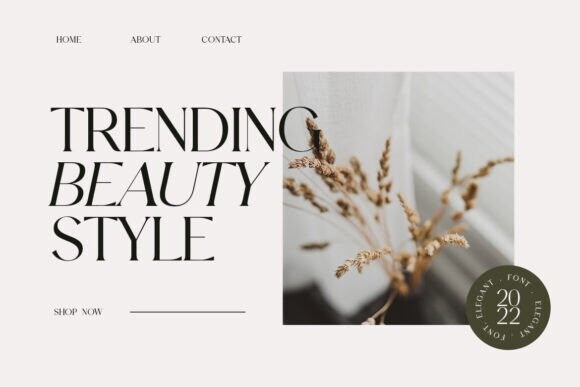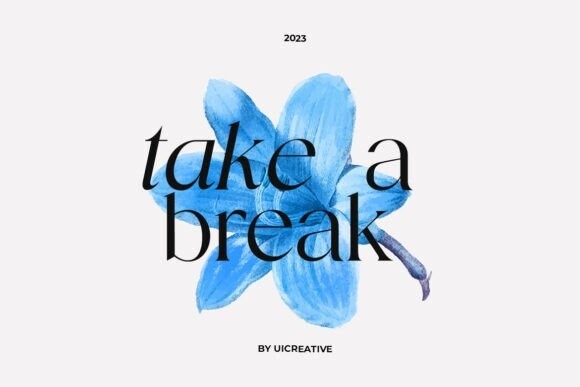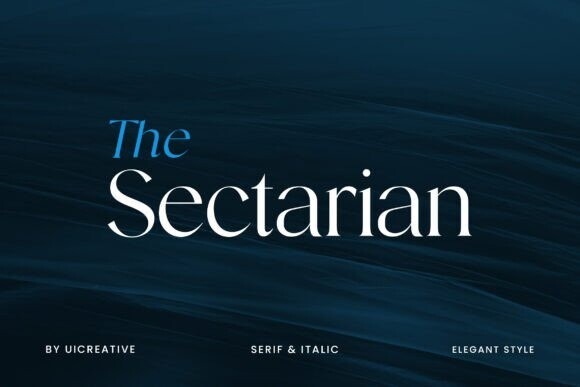
The Sectarian Font
The Sectarian Font – Elegant Serif Font.The modern display font feels beautiful classy, elegant, and stylish. This font is ideally suited for a wide variety of projects, such as signature, stationery, logo, wedding, typography quotes, magazine or book covers, website headers, branding, and more. Also, fashion-related branding or editorial design displays both masculine and feminine qualities.